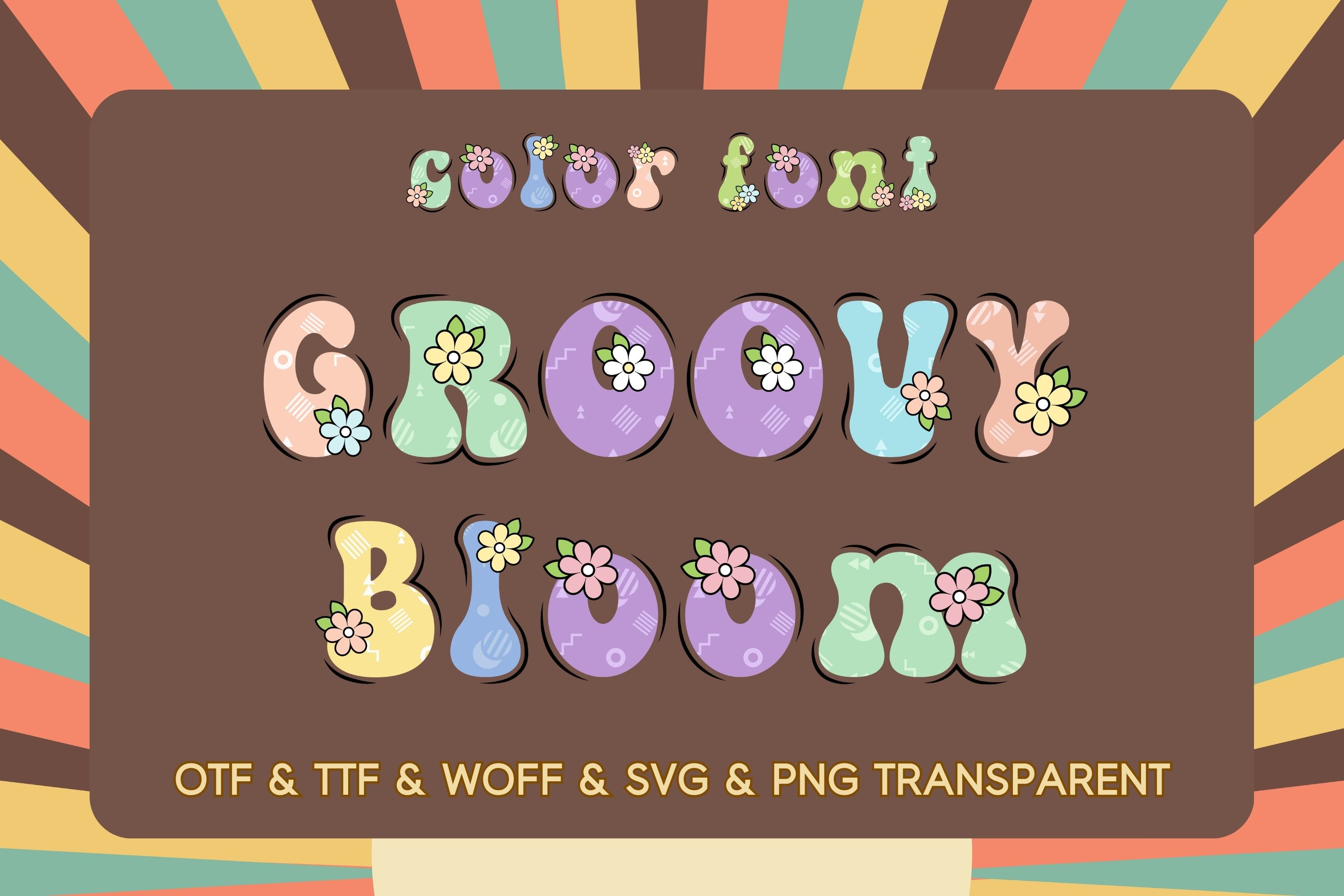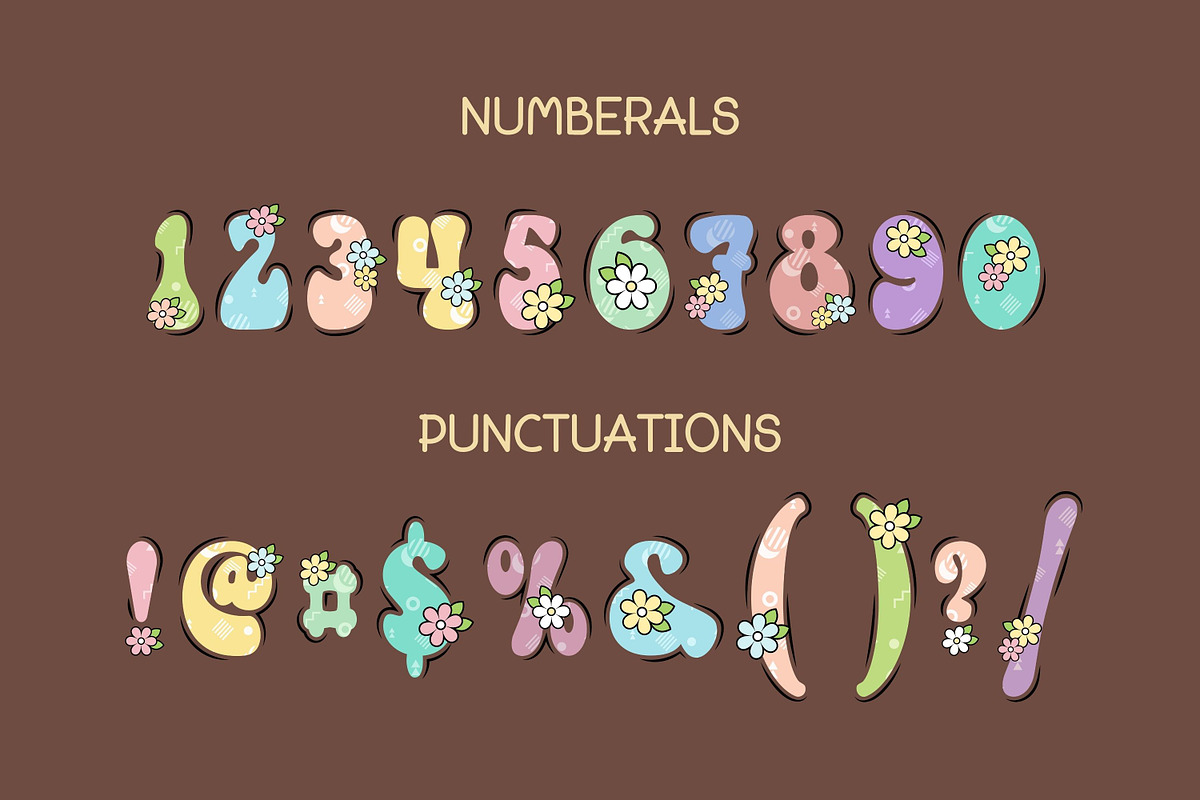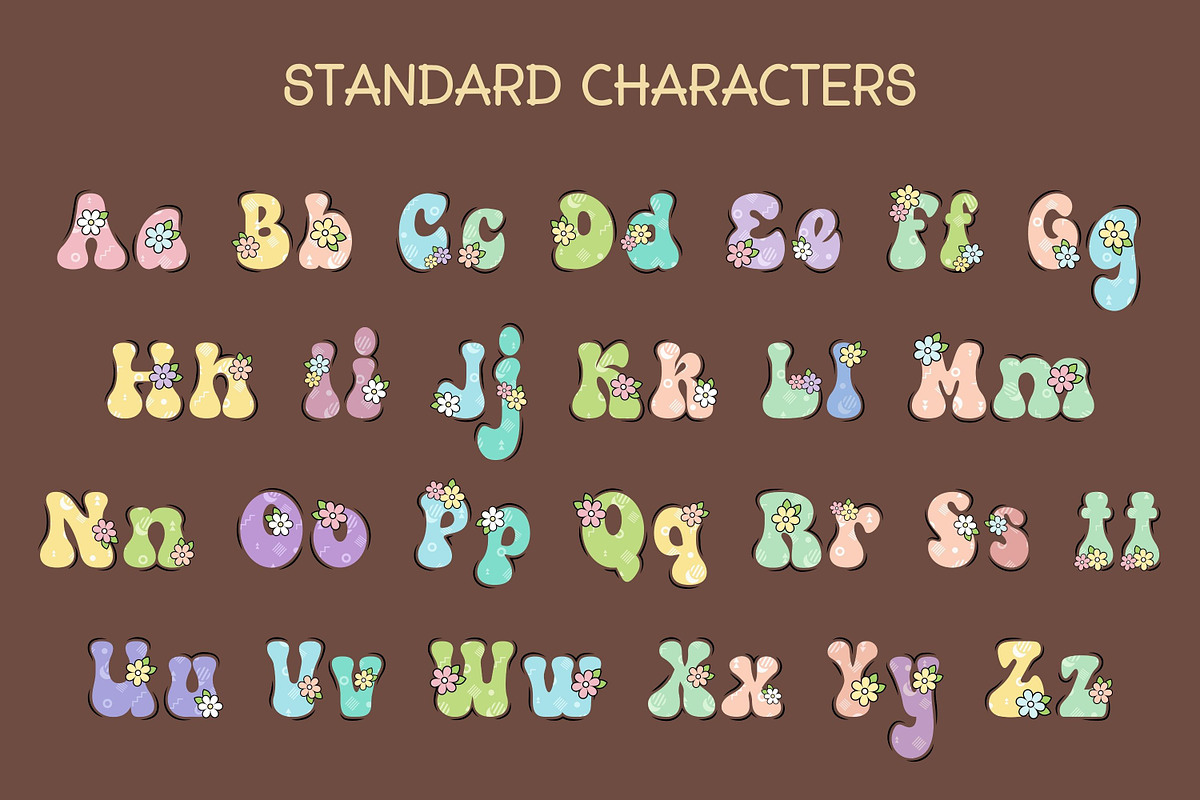
Groovy Bloom - Color Font
Bring a playful retro vibe to your designs with this Groovy Floral Color Font! This charming typeface features chunky bubble letters decorated with cute pastel flowers and fun geometric details in a groovy 70s-inspired style. Each character is carefully designed with soft colors, floral accents, and a hand-drawn shadow effect that makes your text stand out beautifully.
This font includes uppercase and lowercase letters, numbers, and punctuation, making it perfect for all kinds of creative projects. The soft pastel palette of pink, mint, lavender, peach, blue, and yellow gives your designs a cheerful and trendy aesthetic.
\- Retro and groovy themed designs
\- T-shirts, mugs, tote bags, and sublimation
\- Stickers and printable crafts
\- Birthday invitations and greeting cards
\- Scrapbooking and junk journals
\- Social media posts and branding
\- Nursery decor and kids room art
\- Party decorations and posters
\- Digital planners and printable stickers
Perfect for greeting cards, children’s crafts, party invitations, stickers, and holiday merchandise, this color typeface comes in OTF, TTF, WOFF, SVG, and PNG formats for versatile use. Its bright palette and adorable design bring a joyful energy to every creation. Each glyph is richly detailed and rendered in color, making it ideal for projects where character and personality matter.